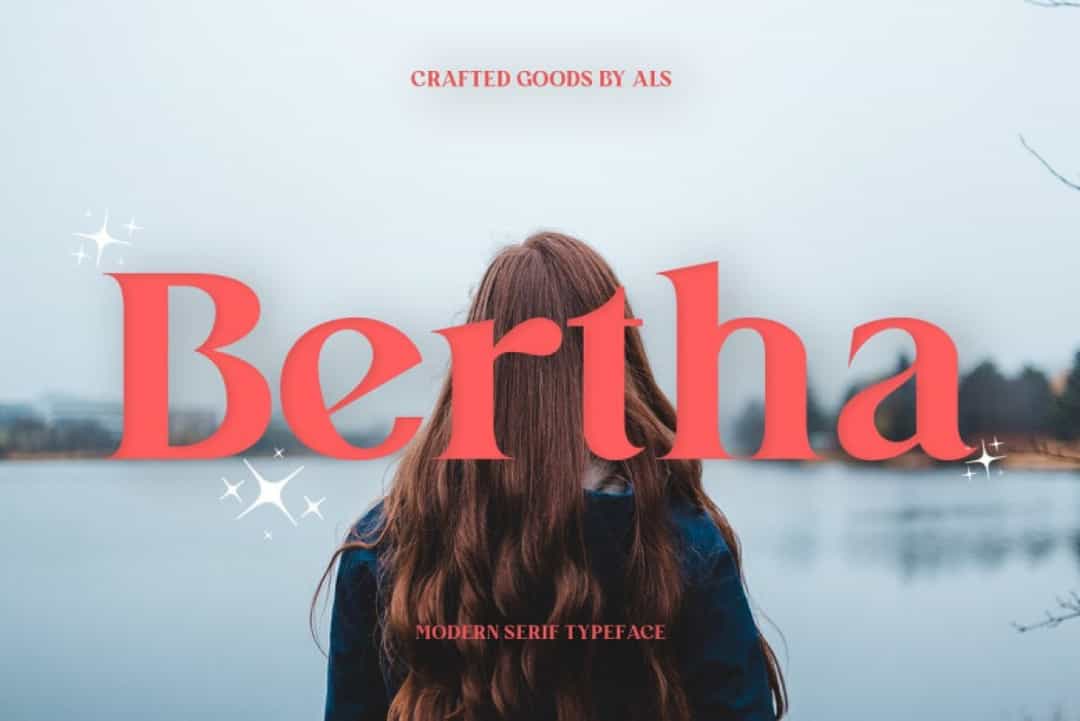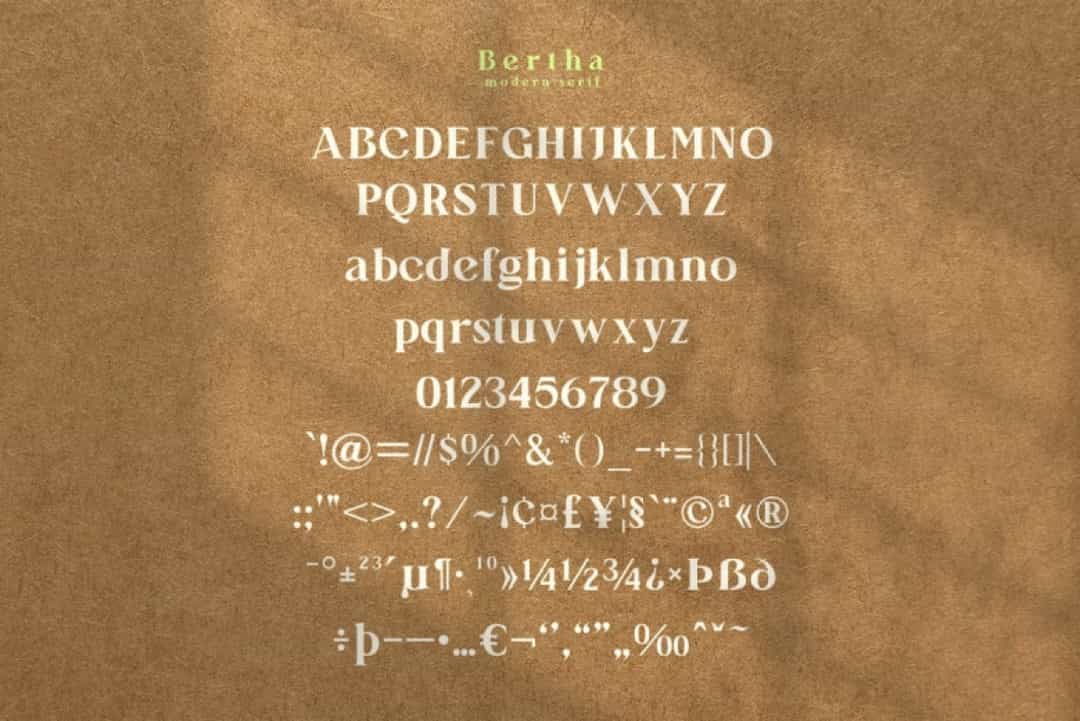
Introduce the brand new Bertha font -a contemporary serif typeface!! For designers looking to add simple elegance, modernity and natural organic elements into their designs. Developed using OpenType features with alternates, ligatures, beginning, ending swashes numbers punctuation features as well as opentype features allowing users to design their own works, the Bertha font is ideal for head titles written quotes greeting cards invitations wedding occasions etc.